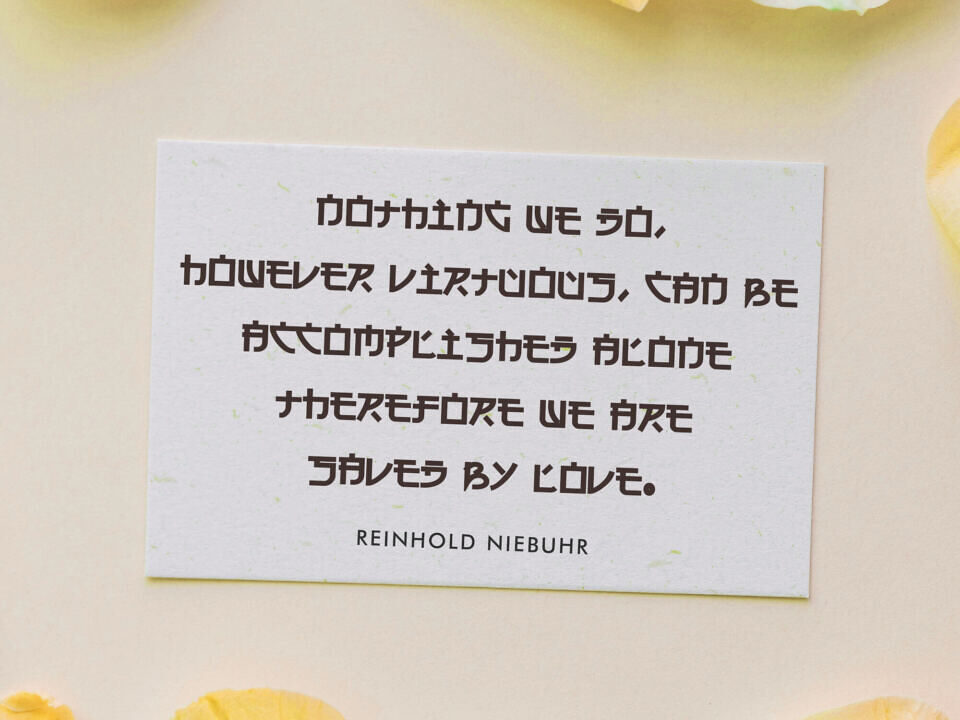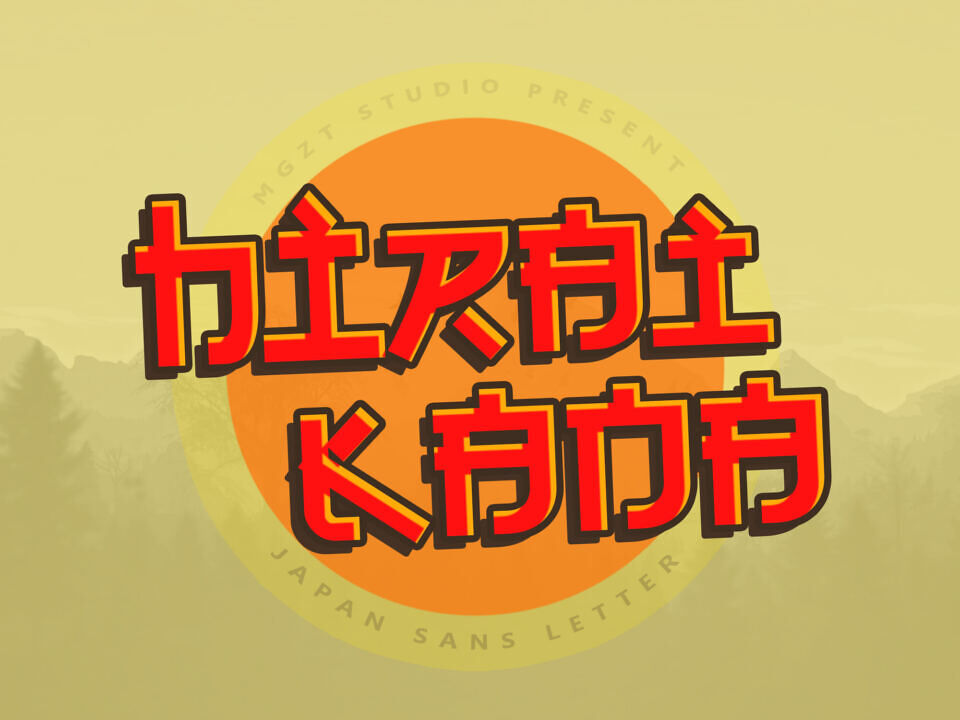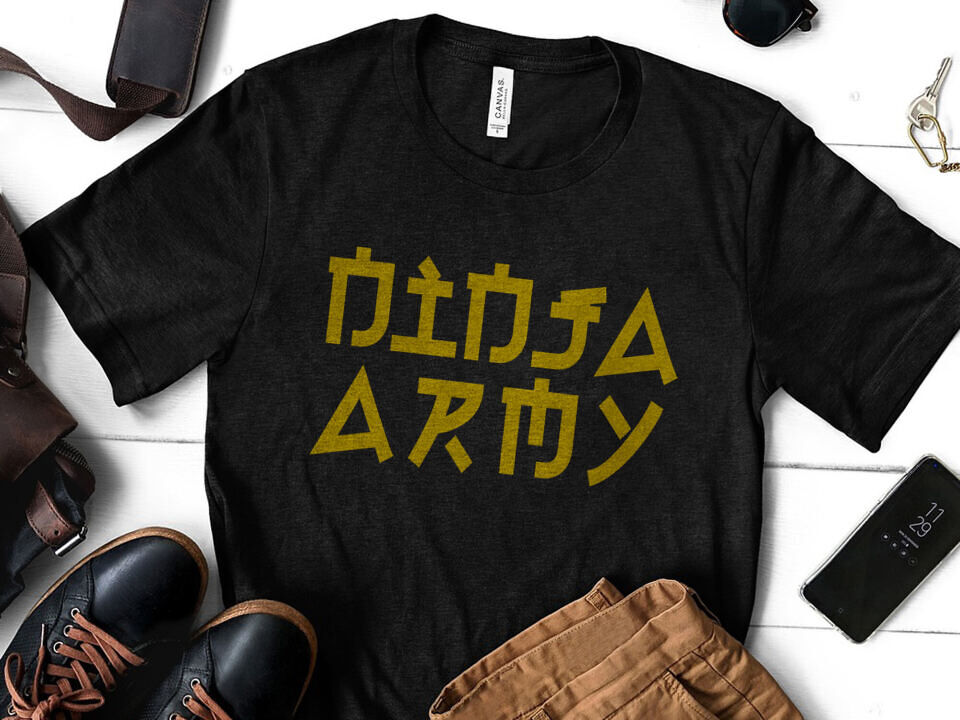
Hiraikana Font
Hiraikana is a refined and sophisticated font that beautifully captures the essence of traditional Japanese calligraphy. With a design rooted in the aesthetics of classic Japanese characters, Hiraikana blends cultural authenticity with modern elegance.
The font’s timeless design makes it perfect for use in high-end branding, cultural projects, and any application that requires a touch of refined beauty. Hiraikana’s blend of tradition and elegance creates a font that is both culturally significant and visually stunning.